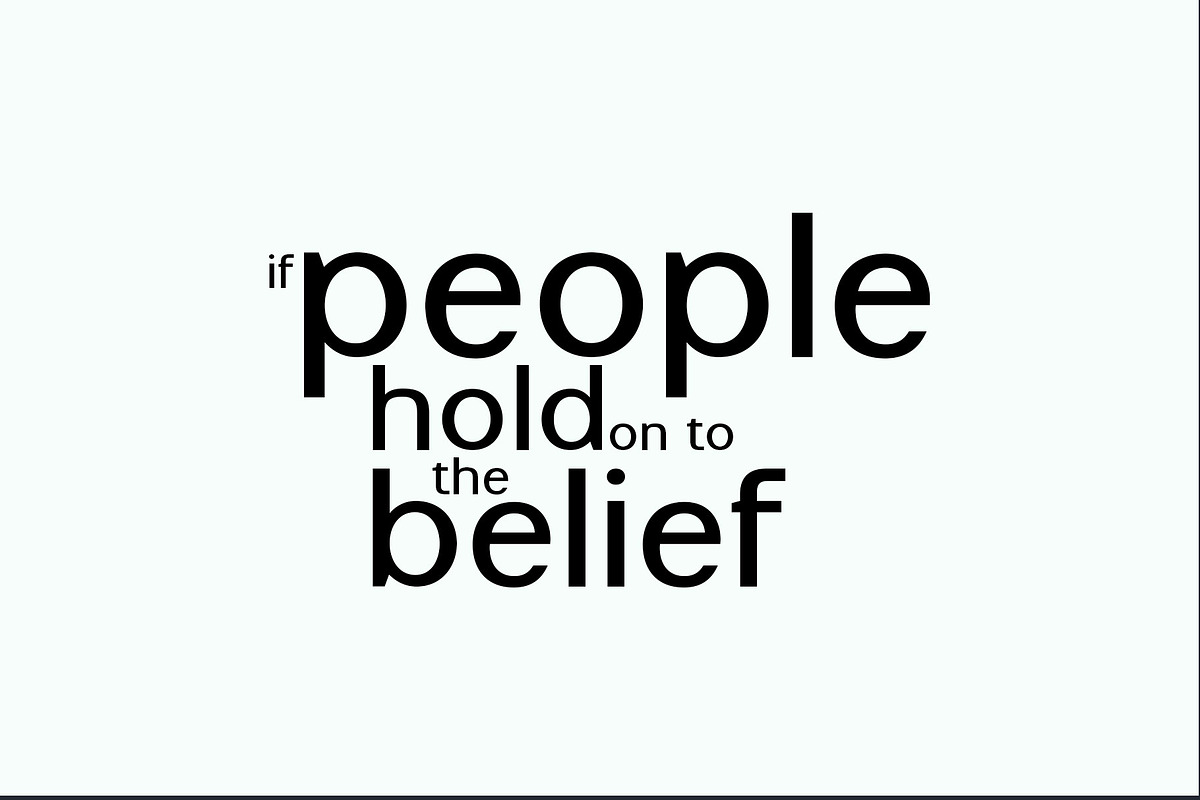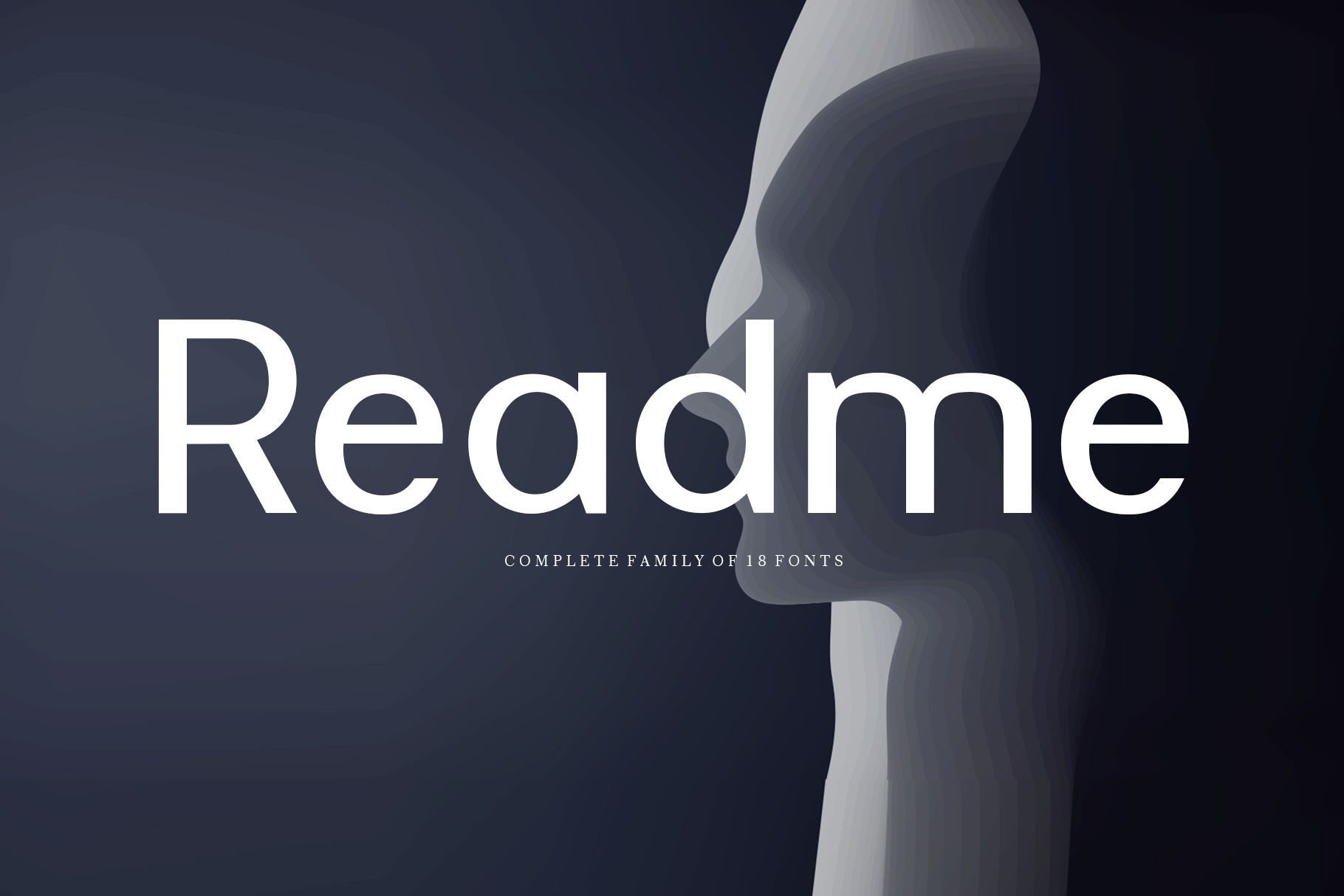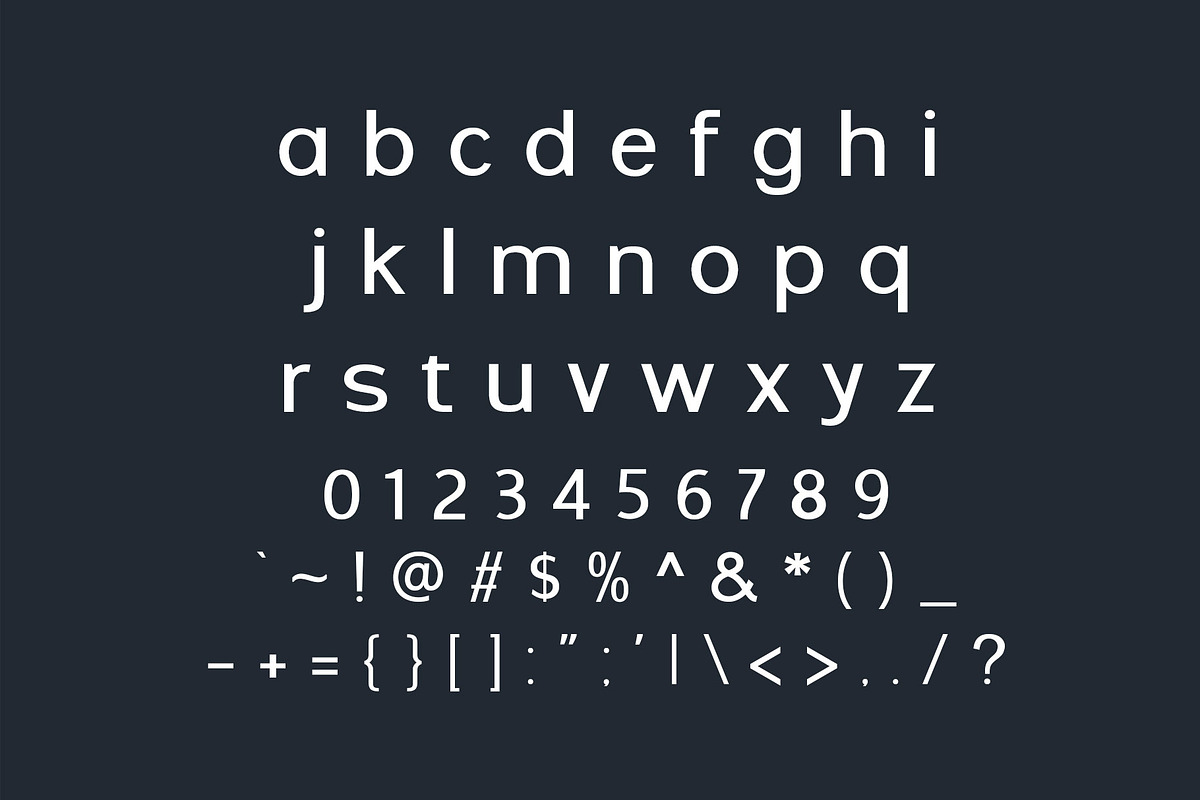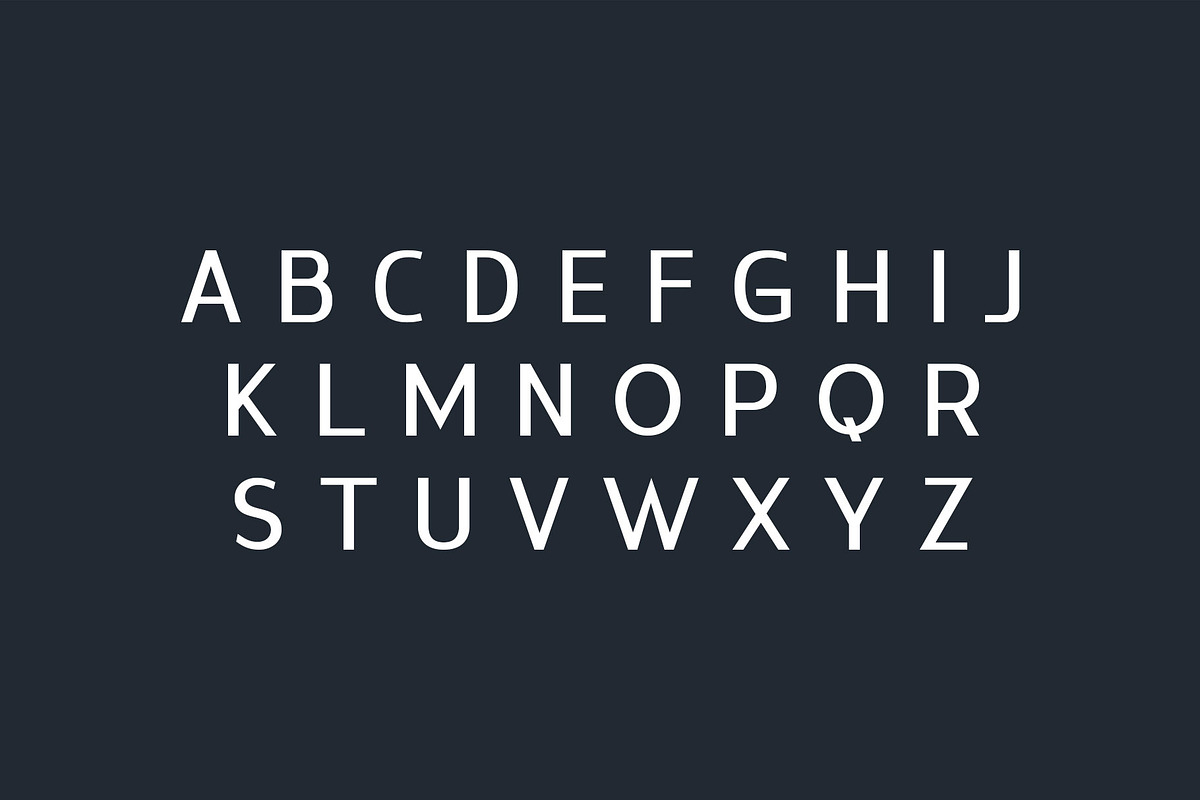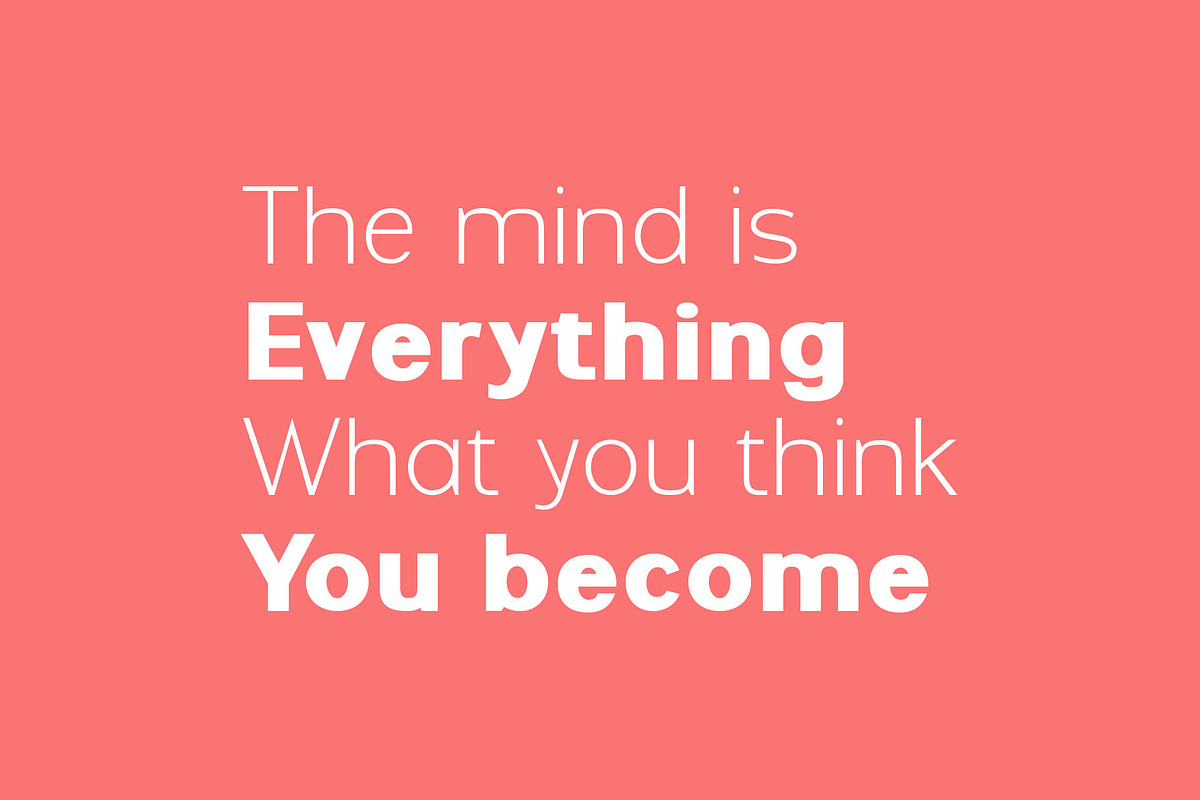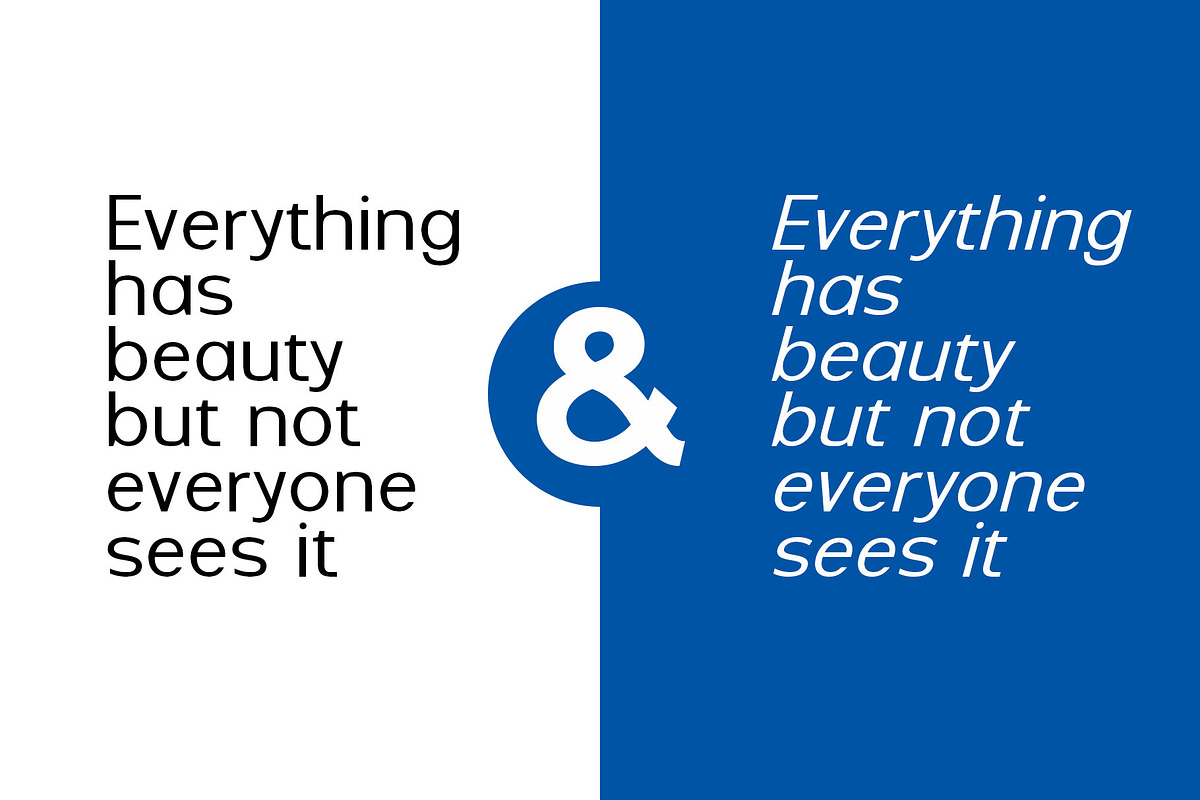
Readme - Complete Family of 18 Fonts
Meet Readme – Where Simplicity Meets Clarity
Readme is a modern and versatile typeface designed to bring clarity and confidence to your words. With clean lines, balanced proportions, and a friendly yet professional appearance, Readme is perfect for everything from user interfaces and branding to editorial layouts and digital products.
Whether you're designing for print or screen, Readme ensures your message is not just seen ~ but remembered.
Why You’ll Love Readme:
Highly legible and modern letterforms
Perfect for both display and body text
Great choice for UI/UX, branding, apps, websites, and more
Includes multilingual support and thoughtful stylistic features
Let your design speak clearly and confidently ~ with Readme, every word matters.